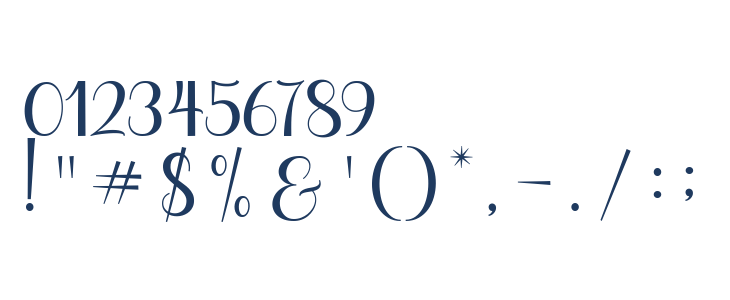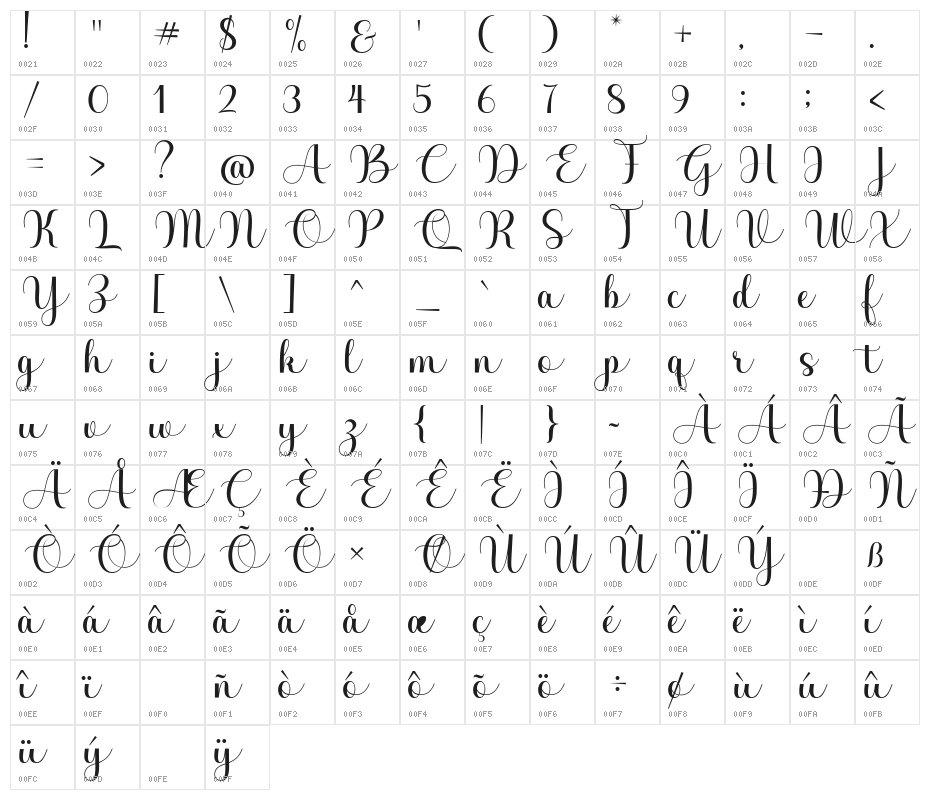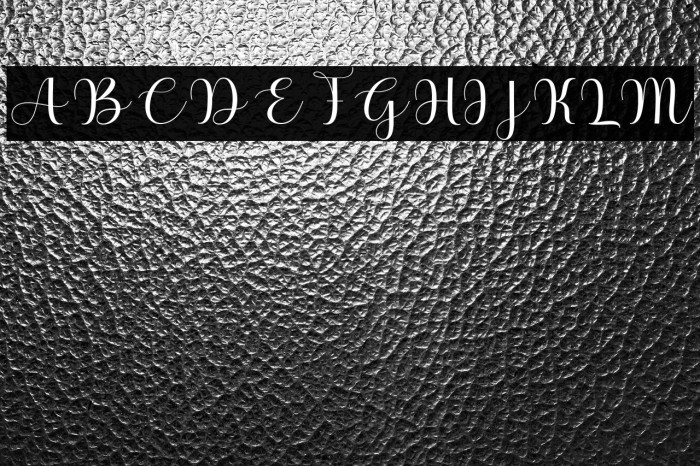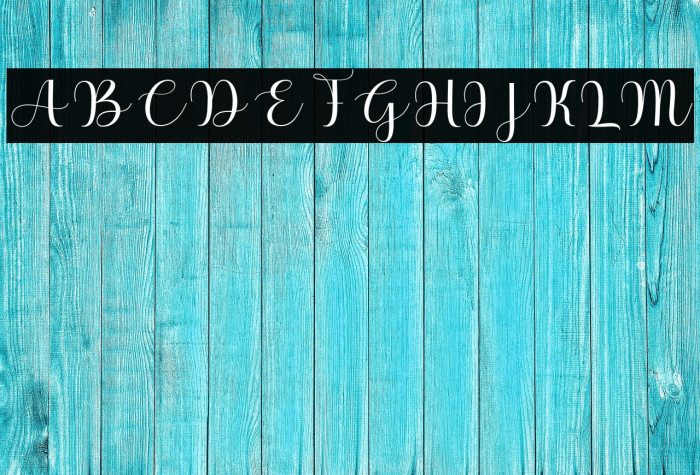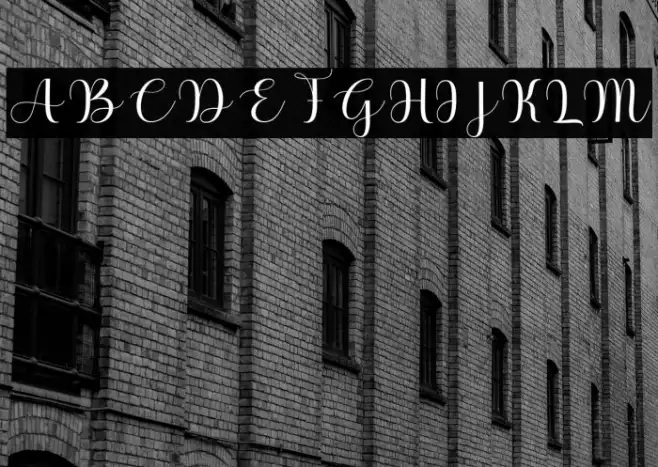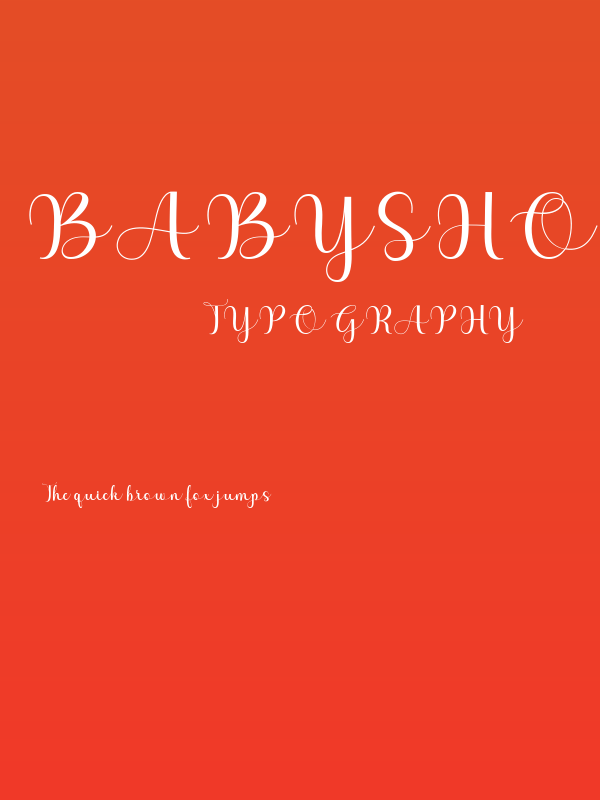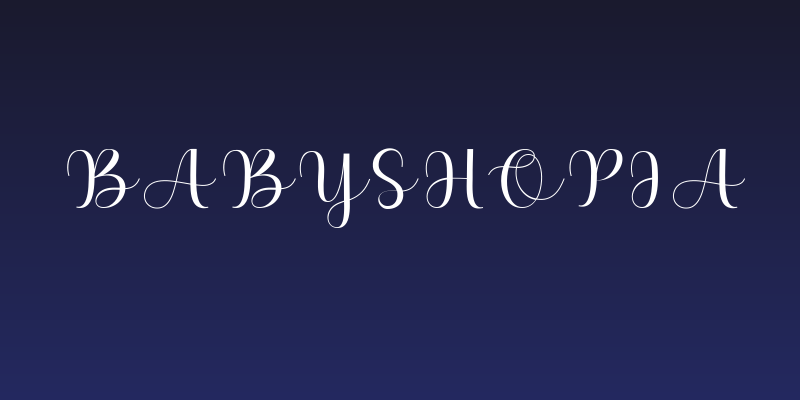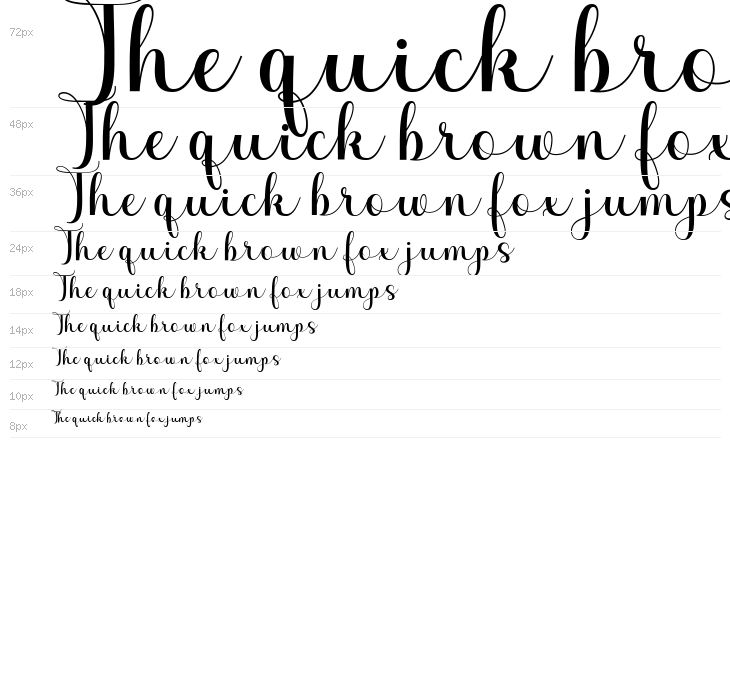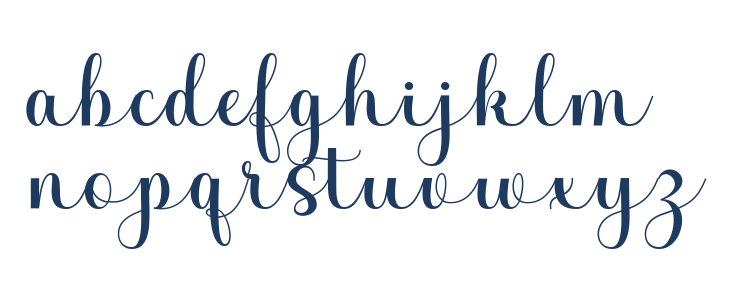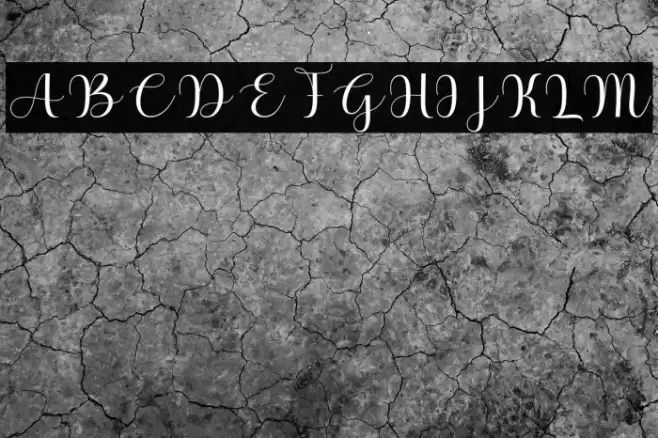
BabyShopia Font
BabyShopia Description
This elegant script font features a graceful and flowing design, characterized by its smooth, cursive strokes and delicate loops. The uppercase letters exhibit a sophisticated flair, with each character seamlessly connecting to the next, creating a harmonious and fluid appearance. The lowercase letters maintain this fluidity, with gentle curves and a consistent stroke width that adds to the font's overall charm. The numerals are bold and slightly more structured, providing a nice contrast to the script letters. Special characters are thoughtfully designed to match the font's aesthetic, ensuring a cohesive look across all text elements.
Overall StyleElegant
Use CaseLogos, Invitations, Decorative text
Proposed ProjectsIdeal for wedding invitations, elegant branding, greeting cards, and decorative signage.